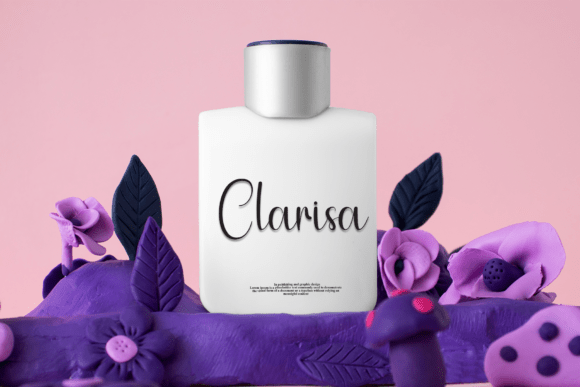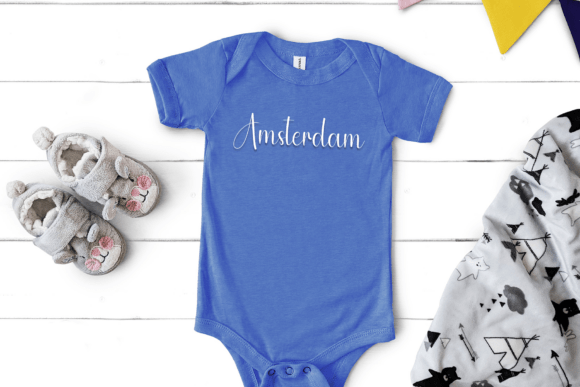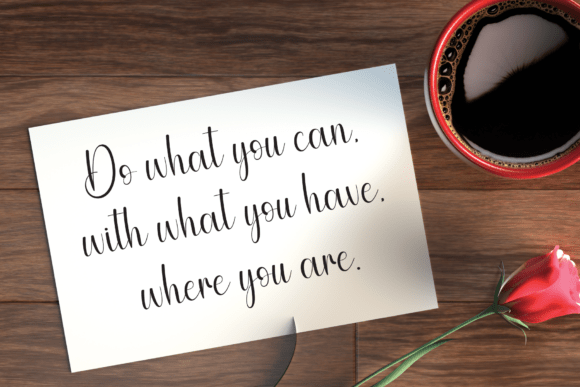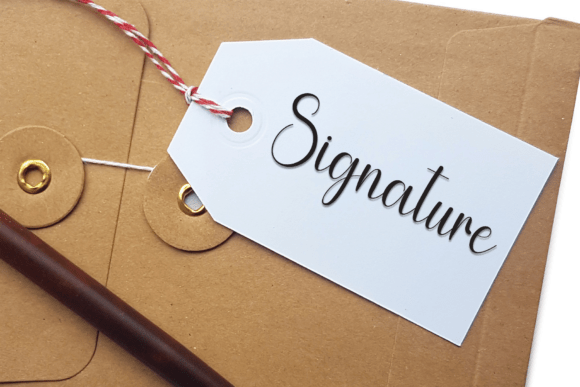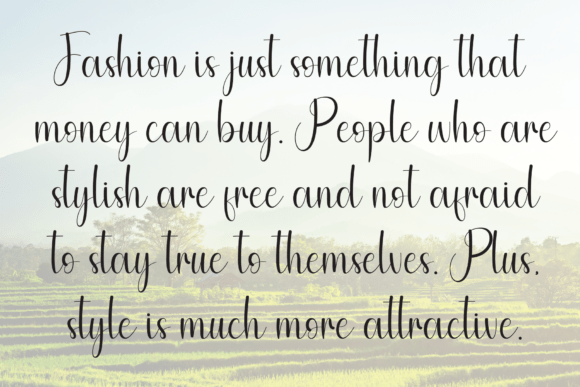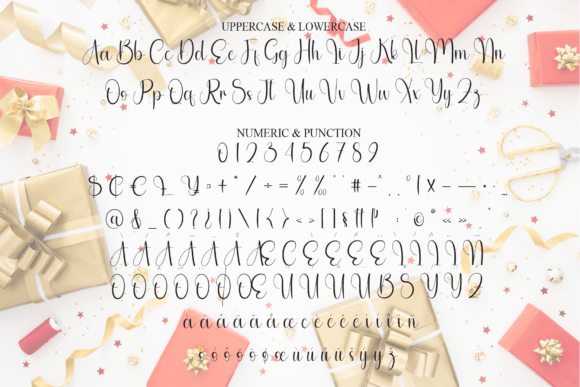
The Perfect Script for Celebrating Life’s Special Moments
Have you ever been tasked with designing a birthday invitation, only to find yourself stuck in a sea of generic templates? The excitement of creating something special for a loved one’s big day can quickly turn into frustration. But what if you had the perfect tool to elevate your design and make it truly unforgettable?
Enter the Birthday Font, a stylish handwritten script that combines elegance with a modern flair. This versatile typeface is designed to add a personal touch to any project, from branding and invitations to social media graphics. With its flowing strokes and organic curves, the Birthday Font brings warmth and sophistication to even the simplest of designs.
Birthday Font Key Features
- Font Style: Cursive, Script, and Handwritten style with a playful touch, perfect for birthday celebrations.
- Unique Characteristics: Features swashes, flourishes, and connecting strokes, giving it a personalized and hand-written feel.
Birthday Font Review
Overall, I found Birthday Font to be a cute and playful addition to any design project. ✨ It’s perfect for birthday invitations, party decorations, and other celebrations. The font is highly customizable and offers a range of styles to suit your needs.
- Customization options are extensive, allowing for a high degree of personalization.
- The font is well-suited for a wide range of celebration themes and occasions.
- ⚠️ The font may not be ideal for formal or professional designs, as it’s quite playful and casual.
- ⚠️ Some users may find the font too bright or overpowering, especially when used in large quantities.
Overall, I’d say Birthday Font is a great choice for designers looking to add some festive flair to their projects. While it may not be suitable for every occasion, it’s a solid option for celebrations and other fun events. Just be mindful of the limitations and use it thoughtfully to avoid overwhelming your design.
Tips for Getting the Most Out of Birthday Font
To get the most out of the Birthday Font, consider the following tips:
- Use bold and italic styles to add emphasis to your text.
- Combine the Birthday Font with other decorative fonts for a unique look.
The Birthday Font is commonly used for:
- Birthday invitations and cards.
- Party decorations and signage.
- Photobooth props and custom designs.
Alternatives to Birthday Font
Great Vibes is a modern, cursive script font perfect for adding a touch of elegance to birthday invitations, cards, and social media posts. It’s ideal for designers looking to create a whimsical and romantic atmosphere. Compared to Birthday Font, Great Vibes is more sophisticated and versatile, making it suitable for a wider range of designs.
Carolyna Pro is a beautiful, elegant script font designed for luxury and high-end branding. It’s perfect for designers who want to create a sense of sophistication and glamour for birthday celebrations. Compared to Birthday Font, Carolyna Pro is more refined and luxurious, making it ideal for high-end clients or special occasions.
Playball
Playball is a fun, energetic font perfect for adding a playful touch to birthday designs. It’s ideal for designers looking to create a lively and youthful atmosphere. Compared to Birthday Font, Playball is more casual and playful, making it suitable for younger audiences or more relaxed celebrations.
Can I customize a birthday font to fit my brand’s style?
Yes, you can customize a birthday font to fit your brand’s style. Most birthday fonts are available in various formats, including OpenType and TrueType, which can be edited using font editing software. You can also use font manipulation tools to create custom versions of the font with your brand’s colors, logos, or other design elements. However, be aware that modifying a font can affect its legibility and compatibility, so it’s essential to test the customized font in various applications and devices.